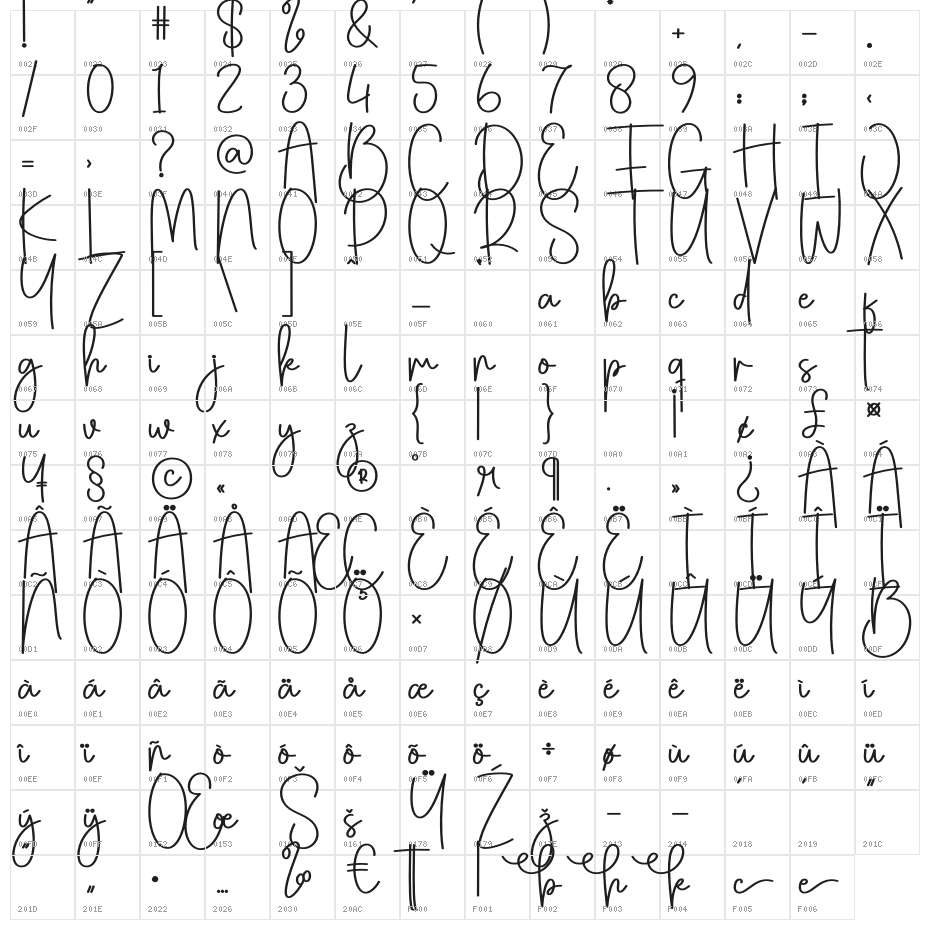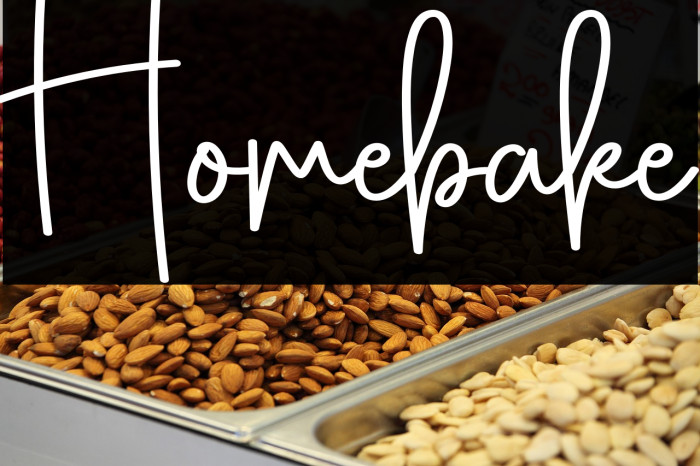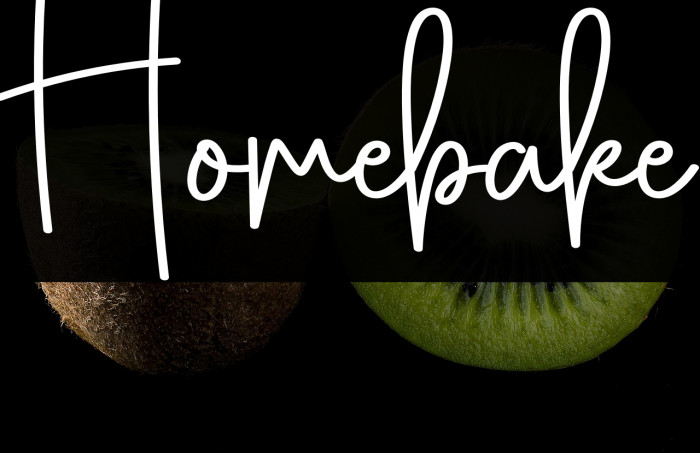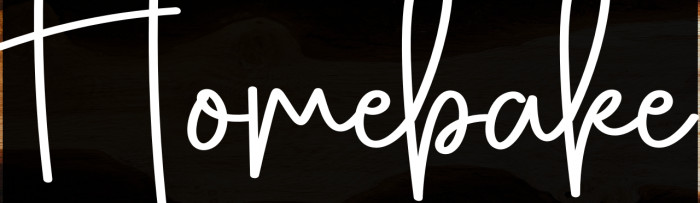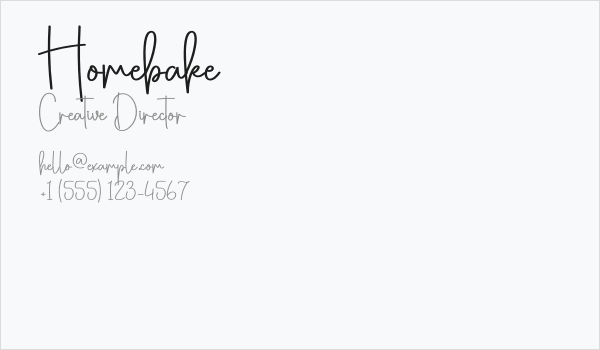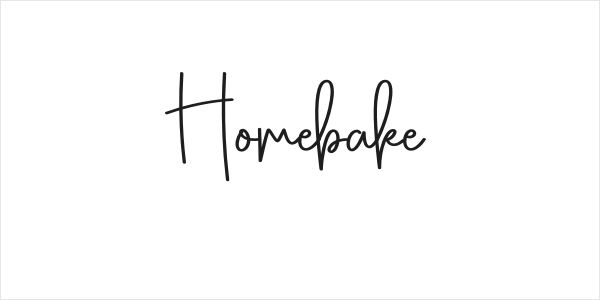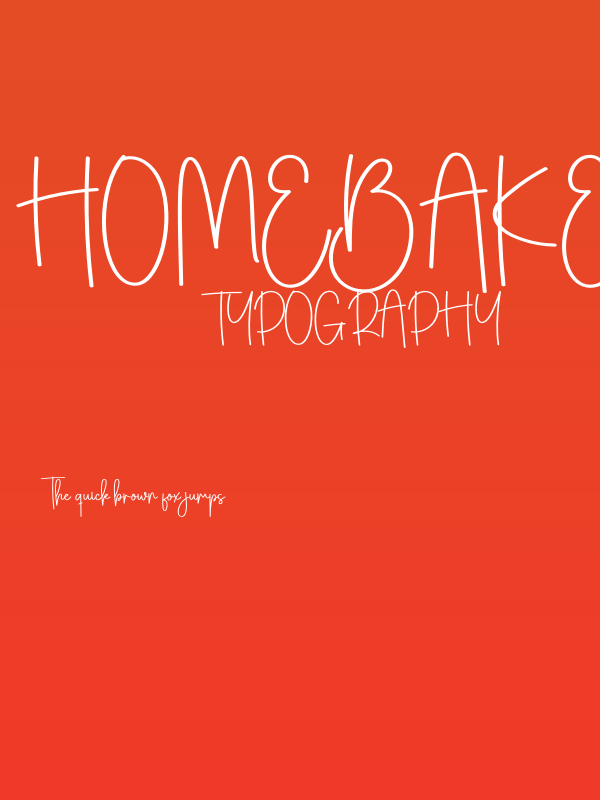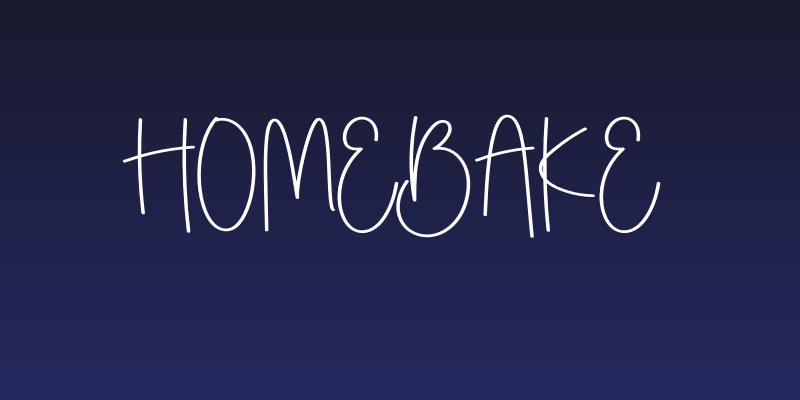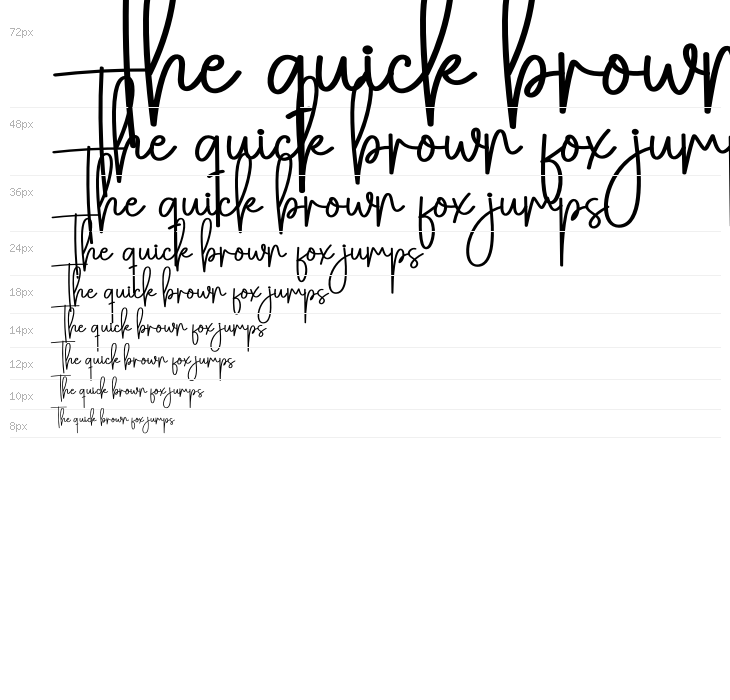
Homebake Font
Homebake Description
This font features a playful and casual handwritten style, characterized by its tall, narrow letters with a slight slant. The uppercase letters are distinct with a whimsical touch, while the lowercase letters exhibit a more fluid and connected script. The numbers maintain the same playful aesthetic, making them easily recognizable. Special characters are creatively designed to match the overall style, adding to the font's versatility. The strokes are consistent in thickness, providing a uniform appearance across all characters.
| Width | Condensed |
| Overall Style | Casual |
| Proposed Projects | Ideal for greeting cards, invitations, personal branding, and playful logos. |